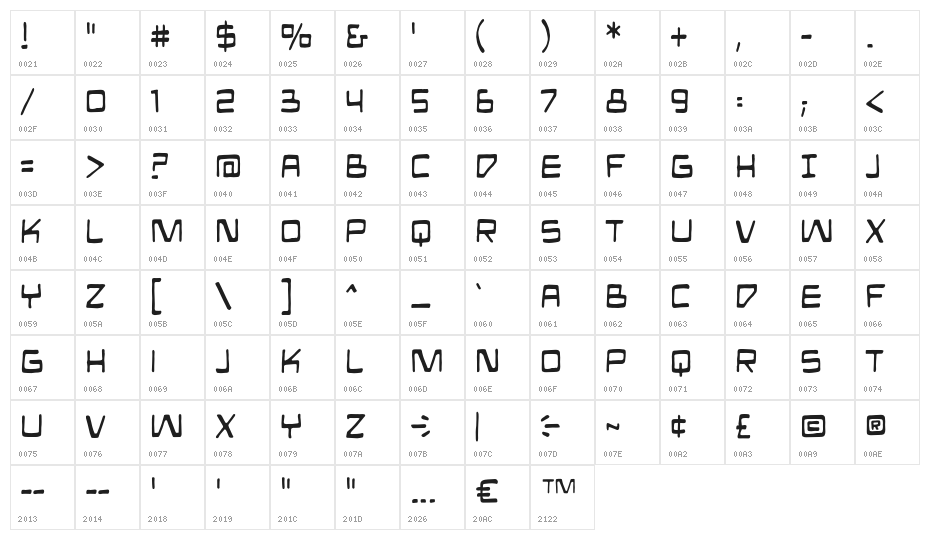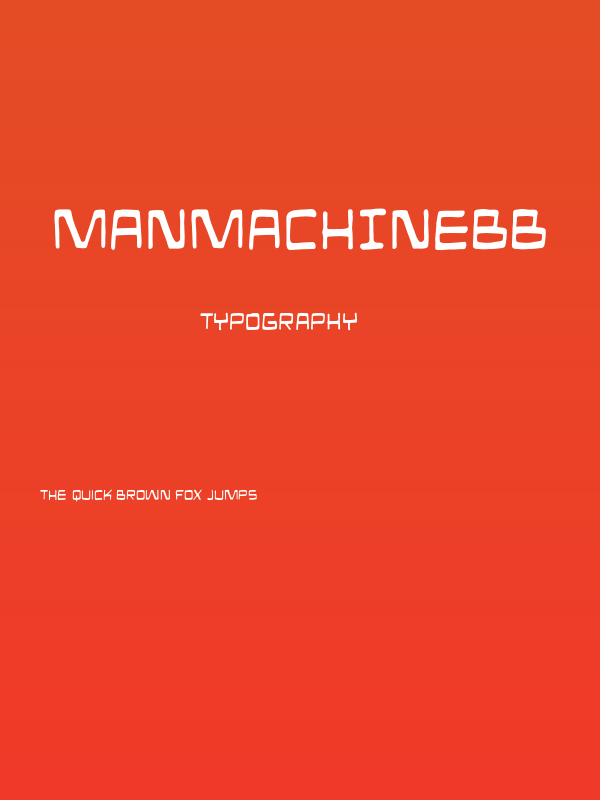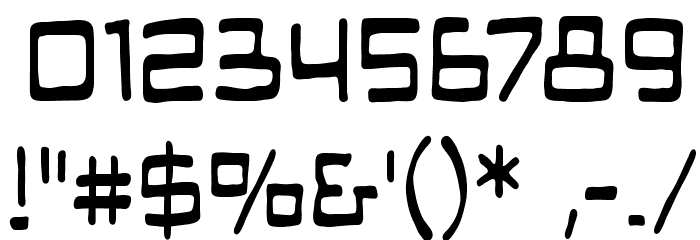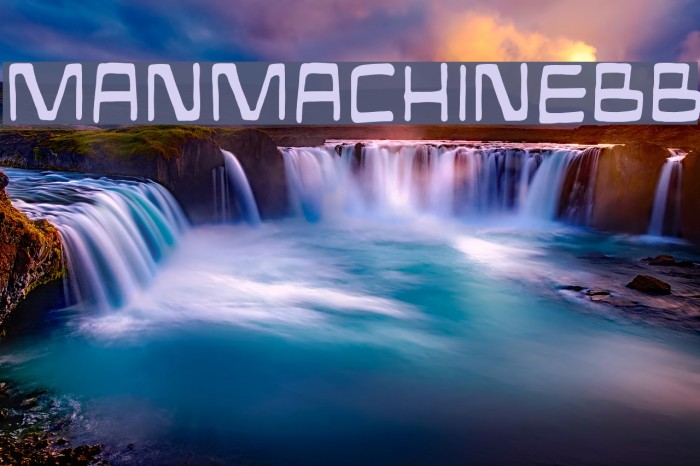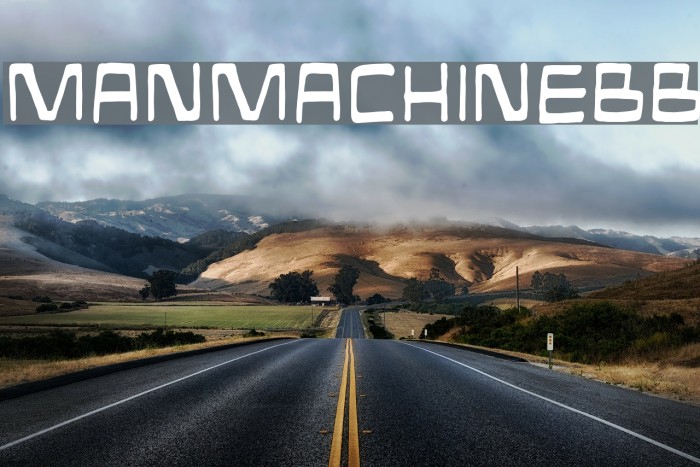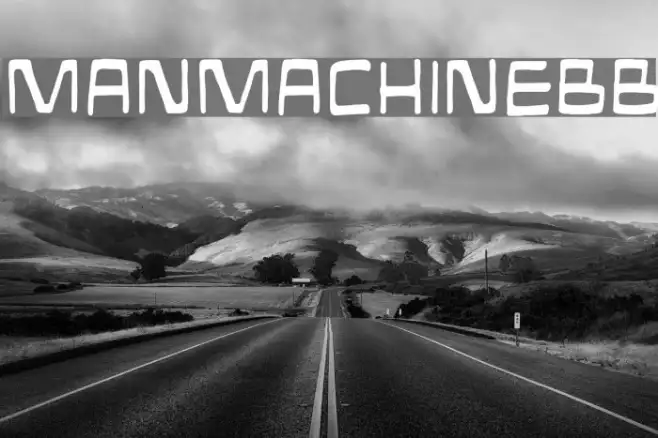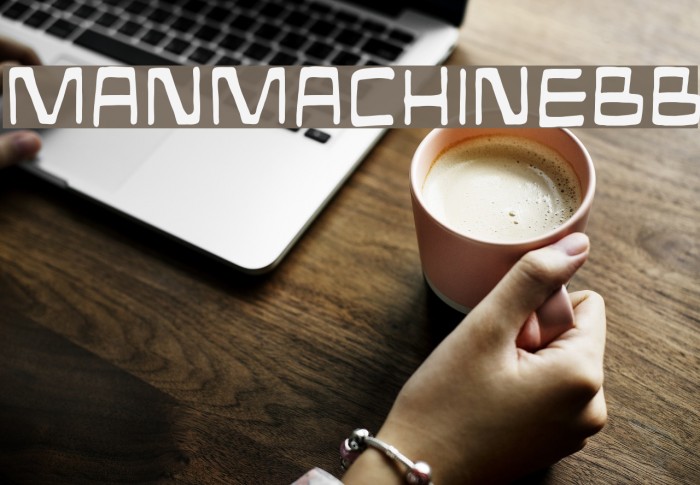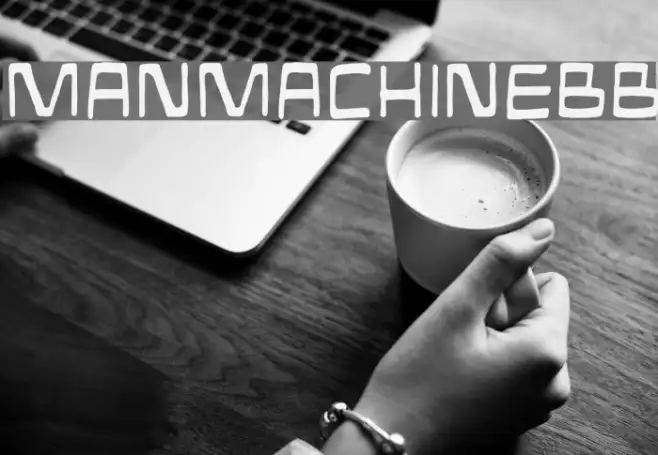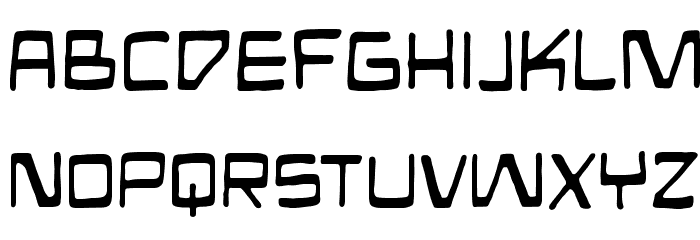
ManMachineBB Font
ManMachineBB Description
This font features a bold, geometric style with a futuristic and mechanical feel. The characters are constructed with uniform stroke widths, giving them a consistent and sturdy appearance. The uppercase and lowercase letters share a similar structure, enhancing the cohesive look of the typeface. The numerals and special characters maintain the same boldness and geometric design, making them easily readable and visually appealing. This font is ideal for projects that require a modern and industrial aesthetic.
| Proposed Projects | Ideal for technology branding, sci-fi posters, video game interfaces, and industrial-themed designs. |